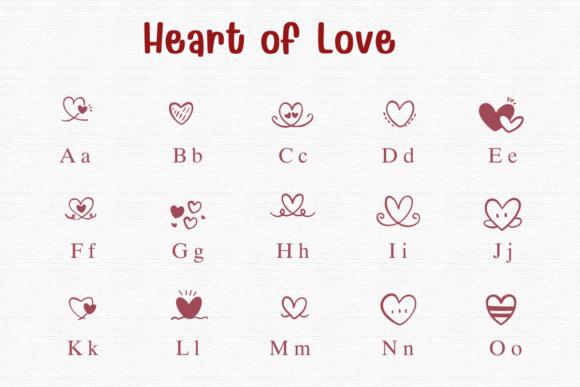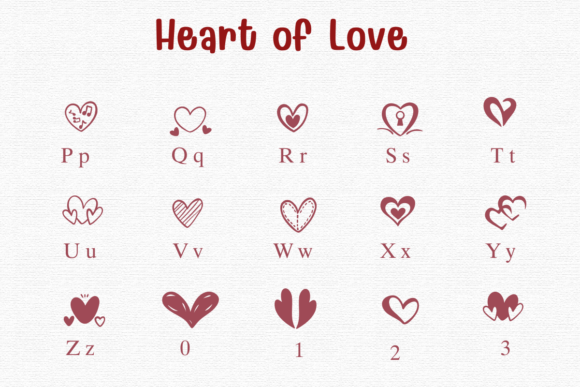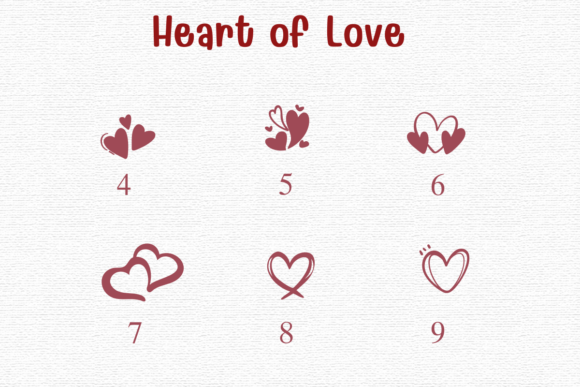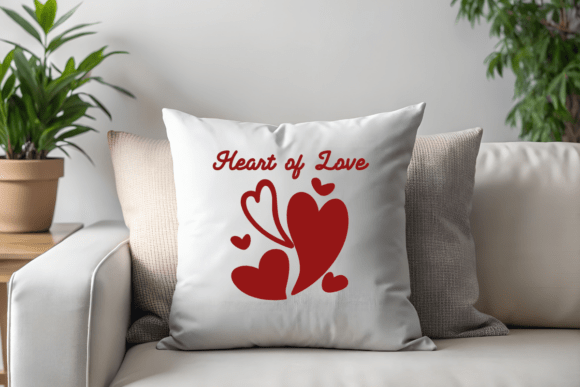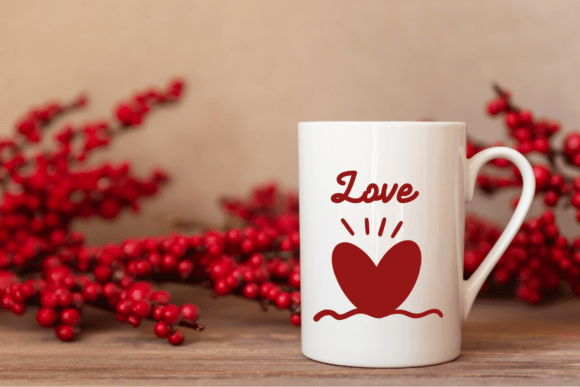
Spread the Love with the Heart of Love Dingbats Font!
Are you tired of using the same old fonts in your designs? Do you want to add a touch of romance and playfulness to your work? Look no further than the Heart of Love Dingbats Font! This unique collection of hand-drawn heart icons and decorative flourishes is the perfect way to express your creativity and bring a little love to your designs.
What is the Heart of Love Dingbats Font?
The Heart of Love Dingbats Font is not a traditional letter font, but rather a set of over 20 adorable and expressive heart-themed dingbats. From simple outlines to detailed, interlocking designs and cute heart keyholes, this collection has something for everyone. Whether you’re a designer, crafter, or social media enthusiast, this font is sure to bring a smile to your face and inspire your creativity.
The Heart of Love Dingbats Font is incredibly versatile and can be used in a variety of design projects. Here are just a few ideas to get you started:
• Crafting projects: Add a touch of love to your scrapbooking, card making, and other paper crafting projects.
• Valentine’s Day designs: Create romantic and playful designs for Valentine’s Day, including cards, invitations, and social media graphics.
• Wedding stationery: Add a touch of whimsy and romance to your wedding stationery, including invitations, save the dates, and thank you cards.
• Social media overlays: Use the Heart of Love Dingbats Font to create eye-catching social media overlays, including Instagram stories, Facebook posts, and Twitter headers.
• Children’s book illustrations: Bring a touch of magic and wonder to your children’s book illustrations with these adorable heart-themed dingbats.
Why Choose the Heart of Love Dingbats Font?
So why choose the Heart of Love Dingbats Font over other fonts and design elements? Here are just a few reasons:
• Unique and expressive: The Heart of Love Dingbats Font is a one-of-a-kind collection of hand-drawn heart icons and decorative flourishes that will add a touch of personality to your designs.
• Scalable: The Heart of Love Dingbats Font is scalable to any size, making it perfect for use in a variety of design projects, from business cards to billboards.
• Versatile: Use the Heart of Love Dingbats Font in a variety of design projects, from digital graphics to print materials.
Tips for Using the Heart of Love Dingbats Font
Here are a few tips for getting the most out of the Heart of Love Dingbats Font:
• Experiment with different sizes and colors: Don’t be afraid to try out different sizes and colors to add visual interest to your designs.
• Combine with other fonts: Pair the Heart of Love Dingbats Font with other fonts to create unique and eye-catching designs.
• Use as a design element: Use the Heart of Love Dingbats Font as a design element in its own right, rather than just as a font.
The Heart of Love Dingbats Font is a must-have collection of hand-drawn heart icons and decorative flourishes that will add a touch of romance and playfulness to your designs. With its unique and expressive designs, ease of use, and versatility, this font is perfect for designers, crafters, and social media enthusiasts alike. So why wait? Spread the love with the Heart of Love Dingbats Font today!